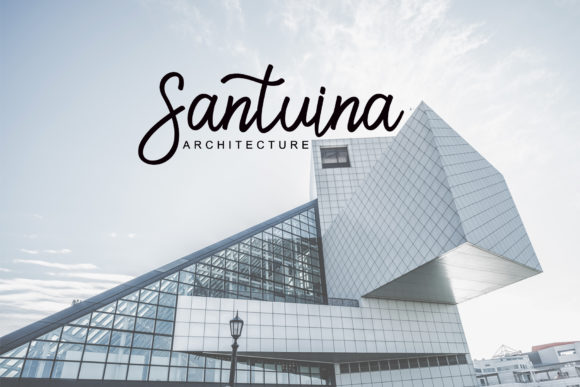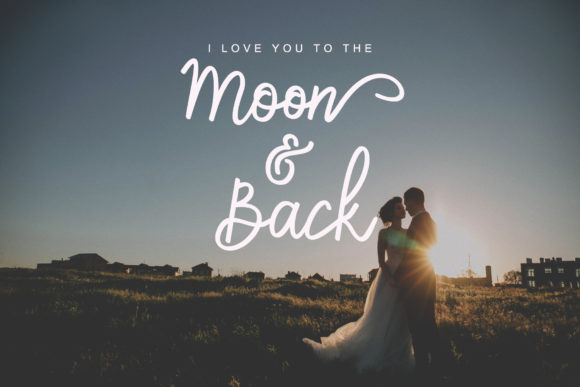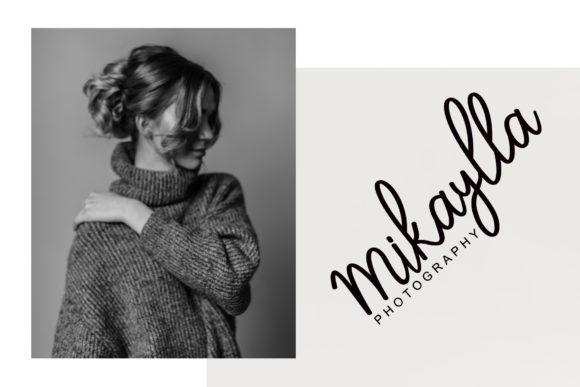
Introduction to Sandwell Font
Sandwell is an incredibly elegant, yet casual and simple font script featuring a natural look in its ligatures & beautiful swashes.
Sandwell is perfect for logos, wedding invitations, posters, social media posts, signatures and much more .
Why Choose Sandwell Font?